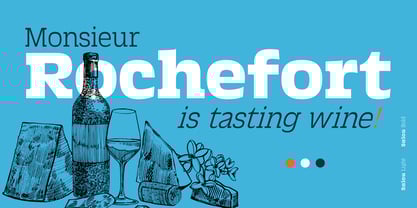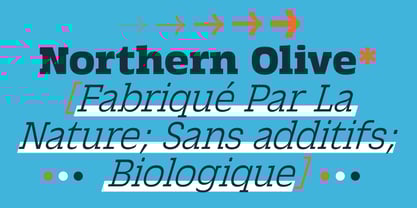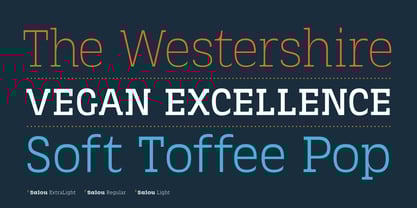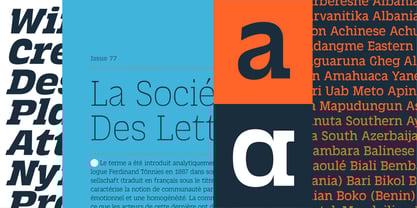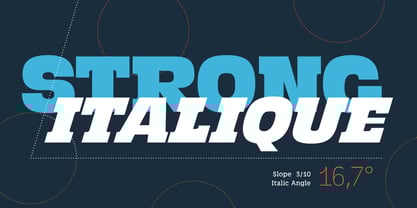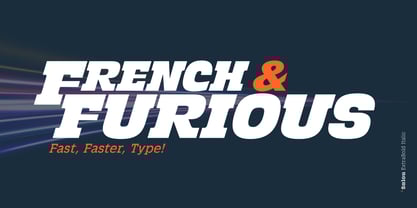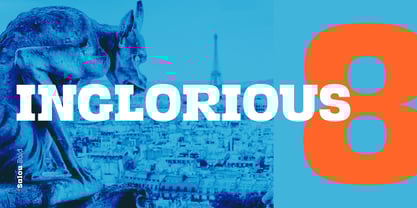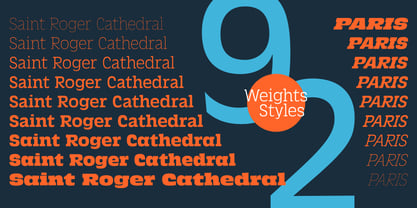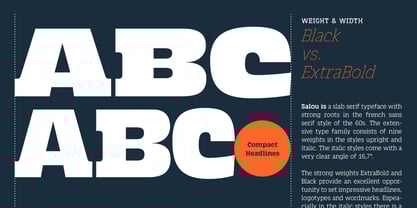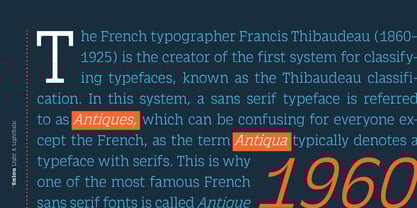
The Salou Font Family was designed by Viktor Nübel and published by Viktor Nübel Type Design. Salou contains 19 styles and family package options.
A slab-serif typeface with a warm and charming tone, ready to tell stories, and ready to brand your products, this is Salou. The typeface is a homage to Roger Excoffon and his sans-serif classic Antique Olive from the 60s. It is the serif companion of this French humanist icon. Salou comes with a very large x-height, soft shapes, and headlining weight proportions. The weight range goes from an ultra-thin to an extreme black, sliced in 9 steps. The typeface is designed and available as a variable font, which gives countless more options. Beside the weight axis, on a second axis comes a slant style that goes to a strong angle of 16.7°. Beyond the standard European Latin languages, Salou supports an extra range of languages, such as Azerbaijani, Ga, and Hausa, mostly of African origin. Hyperglot gives support for over 400 languages in Latin script.
Salou